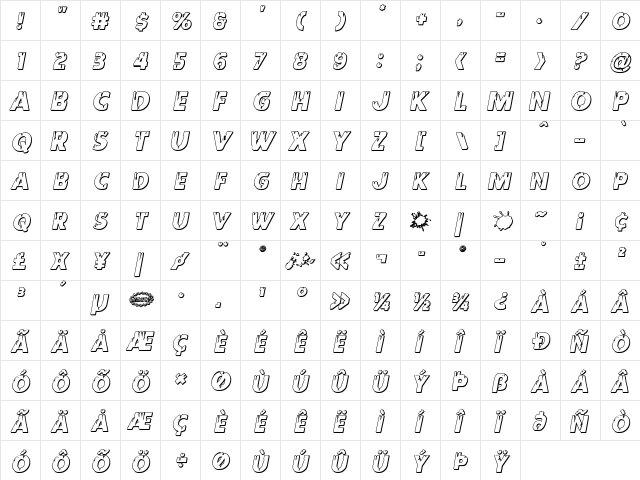
Red Undead Shadow Italic Italic
Design Context for Red Undead Shadow Italic Typeface
Red Undead Shadow Italic is built around its visual character rather than neutral utility — its distinctive forms are designed to make an impression at display sizes. Its italic angle brings a sense of urgency and motion to the letterforms.
Font Pairing: Pair with a clean neutral sans-serif for body copy to let Red Undead Shadow Italic's character lead without overwhelming the composition.
Pro Tip: Treat Red Undead Shadow Italic as the centrepiece of your typographic hierarchy. One strong heading set in a decorative face can carry an entire layout.